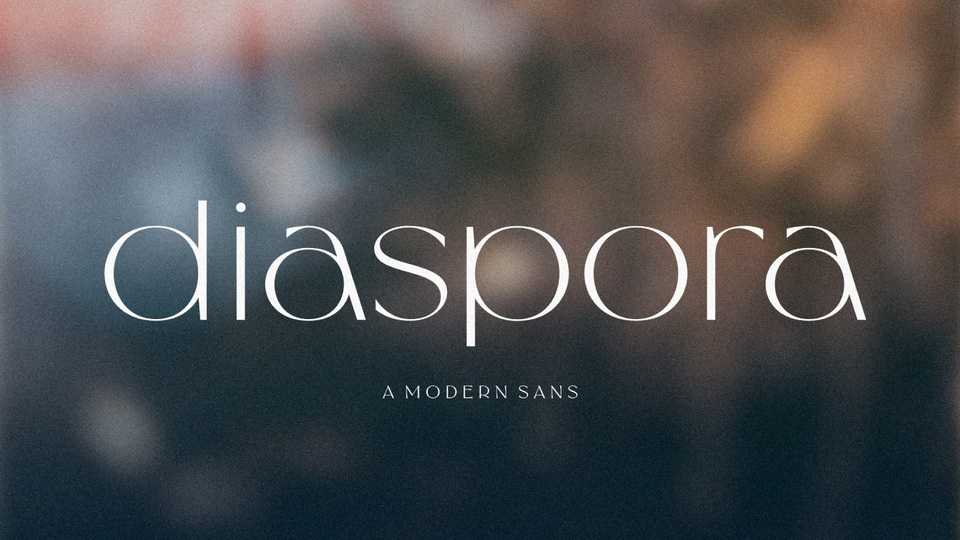
Download Diaspora font, a fancy modern sans serif typeface designed to give the impression of elegance and luxury. Diaspora is absolutely perfect for editorial projects, logo design, wedding, clothing branding and more.
Designer: Letteralle Studio